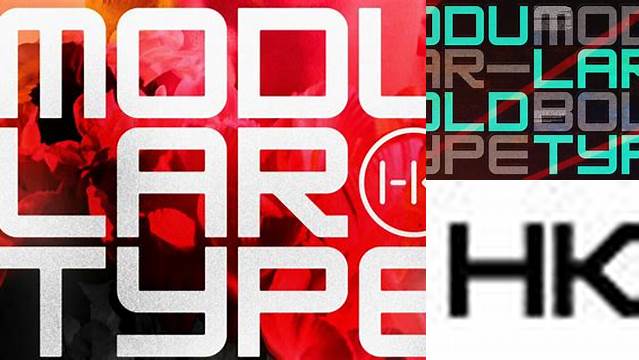
Hey guys! Are you on the hunt for a sleek, modern font to spice up your design projects? Well, you've landed in the right spot! Today, we're diving deep into the world of HK Modular, a fantastic font that's been making waves in the design community. We'll cover everything from what makes it so special to where you can snag it for free and how to use it like a pro. So, buckle up and let's get started!
What is HK Modular Font?
First things first, let's talk about what HK Modular actually is. This font is a geometric sans-serif typeface that's known for its clean lines and modern aesthetic. It's super versatile, making it a great choice for a wide range of projects, from website design and branding to print materials and even app interfaces. The font exudes a sense of professionalism and clarity, making it a go-to for designers aiming for a contemporary look. Its modular design means that each character is constructed from basic geometric shapes, giving it a consistent and harmonious feel. This consistency is what makes it so readable and visually appealing, whether you're using it for headlines or body text. Plus, it comes in various weights, offering even more flexibility for your design needs. When you're looking for a font that balances functionality with style, HK Modular is definitely one to consider. Think about how the clean lines can elevate a minimalist design or how the different weights can create visual hierarchy in a layout. The possibilities are pretty endless!
Why Choose HK Modular Font?
So, why should you choose HK Modular over the countless other fonts out there? There are a bunch of reasons, actually! One of the biggest perks is its versatility. As we mentioned, it works wonders in so many different contexts. Whether you're designing a sleek website, crafting a professional presentation, or putting together eye-catching marketing materials, HK Modular can handle it all. Its clean and modern look is perfect for projects that need to convey a sense of sophistication and clarity. Another great thing about HK Modular is its readability. The well-defined characters and balanced proportions make it easy on the eyes, even in smaller sizes. This is crucial for ensuring that your message gets across clearly, whether it's in print or on a screen. Plus, the various weights available allow you to create visual hierarchy and add emphasis where needed. Beyond its practical benefits, HK Modular also has a certain stylish flair. It's a font that can make your design stand out without being overly flashy. It’s the kind of font that quietly commands attention, adding a touch of elegance and modernity to any project. And let’s not forget the fact that you can find it for free! This makes it an incredibly accessible option for designers of all levels, from students to seasoned professionals. If you're aiming for a contemporary and polished look, HK Modular is definitely worth considering. It's a font that brings both style and substance to the table, making it a valuable asset in any designer's toolkit.